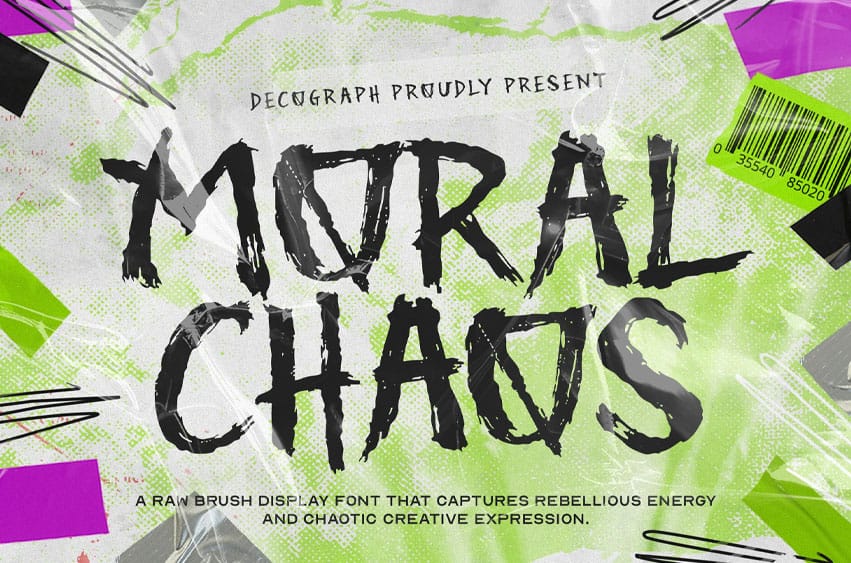
Moral Chaos Font Raw Brush Display Font is an aggressive handwritten typeface built with rough brush strokes and chaotic texture. Its jagged edges and irregular forms create a rebellious visual energy that feels raw, expressive, and unapologetically bold. The imperfect brush details give the font a gritty personality while maintaining strong impact for display typography.
Designed for projects that demand intensity and attitude, this font works perfectly for bold headlines and rebellious visual styles. Whether used in posters, music artwork, or social media graphics, Moral Chaos delivers a striking urban aesthetic full of raw creative energy.
Style:Â Raw Brush Grunge Display Urban Chaotic